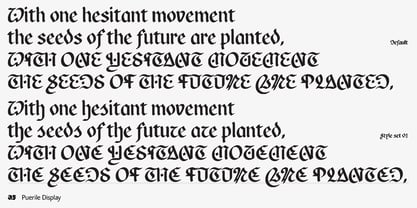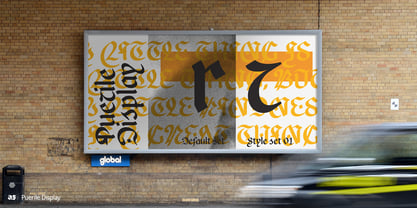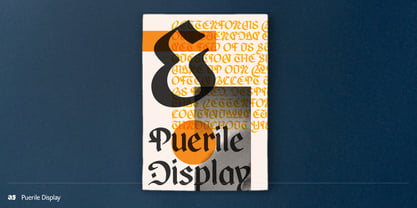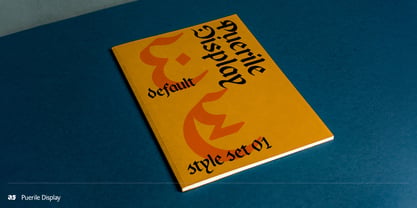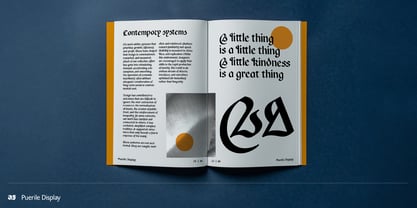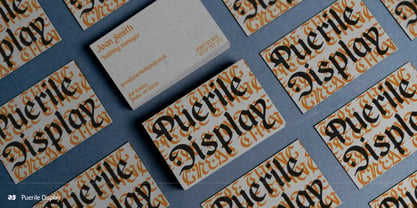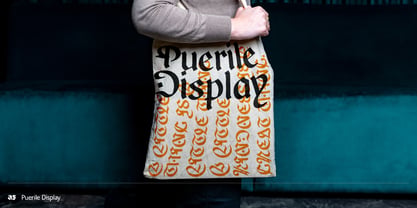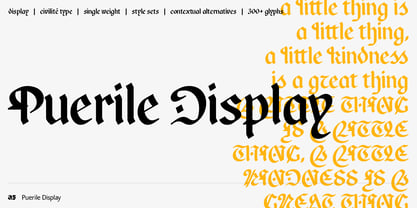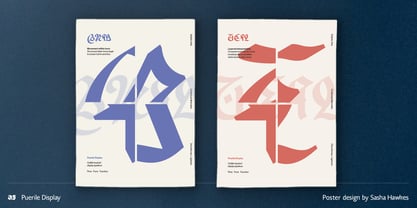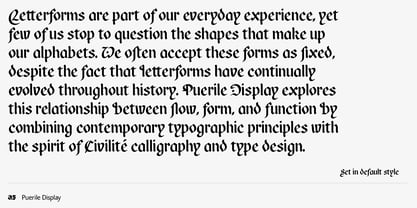
Puerile Display
Letterforms are part of our everyday experience, yet few of us stop to question the shapes that make up our alphabets. We often accept these forms as fixed, despite the fact that letterforms have continually evolved throughout history. Puerile Display explores the relationship between flow, form, and function by combining contemporary typographic principles with the spirit of Civilité calligraphy and type design.
Taking its name from Civilité Puérile, Puerile Display references Robert Granjon's sixteenth-century efforts to engage younger readers through distinctive letterforms. Rather than recreating Civilité directly, the typeface uses its historical foundations as a starting point for re-examining familiar alphabetic structures through a contemporary lens.
Playful, ornate, and distinctive, Puerile Display draws upon the decorative character of Civilité while retaining a clear Gothic foundation. Historic influences are balanced with modern proportions, details, and construction, resulting in a typeface that feels rooted in tradition while remaining relevant to contemporary visual culture.
A rich set of OpenType features, including contextual alternates and stylistic sets, allows the typeface to embrace its historical influences without being constrained by them. Inspired particularly by the expressive uppercase forms of Civilité, Puerile Display reimagines familiar letterforms to explore how ornament, legibility, and convention can coexist within a functional writing system.
The result is a typeface that remains readable while introducing alternative structures and unexpected forms. Designed for projects that value personality and expression, Puerile Display embraces the idea that typography can communicate through atmosphere and visual rhythm as much as through language itself.